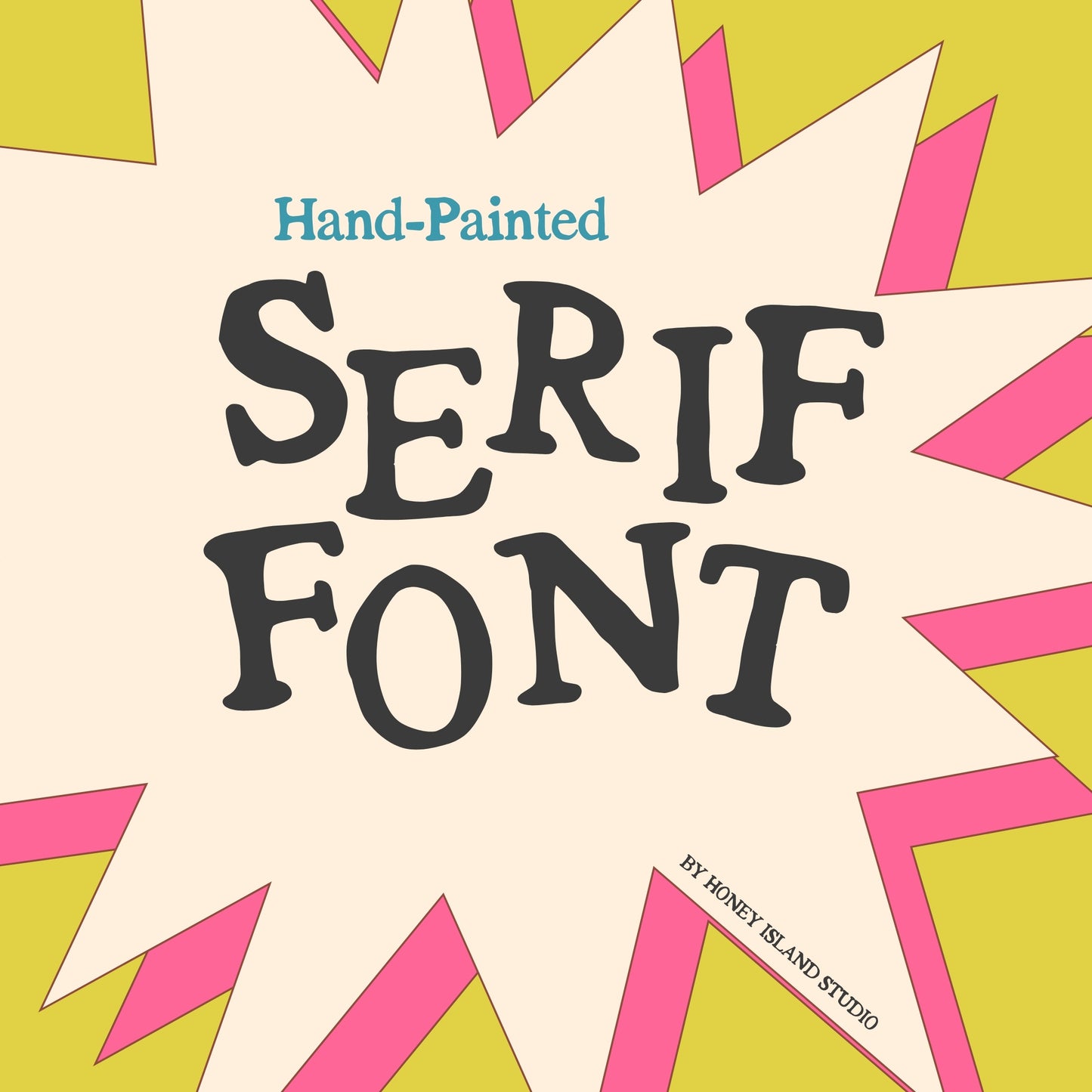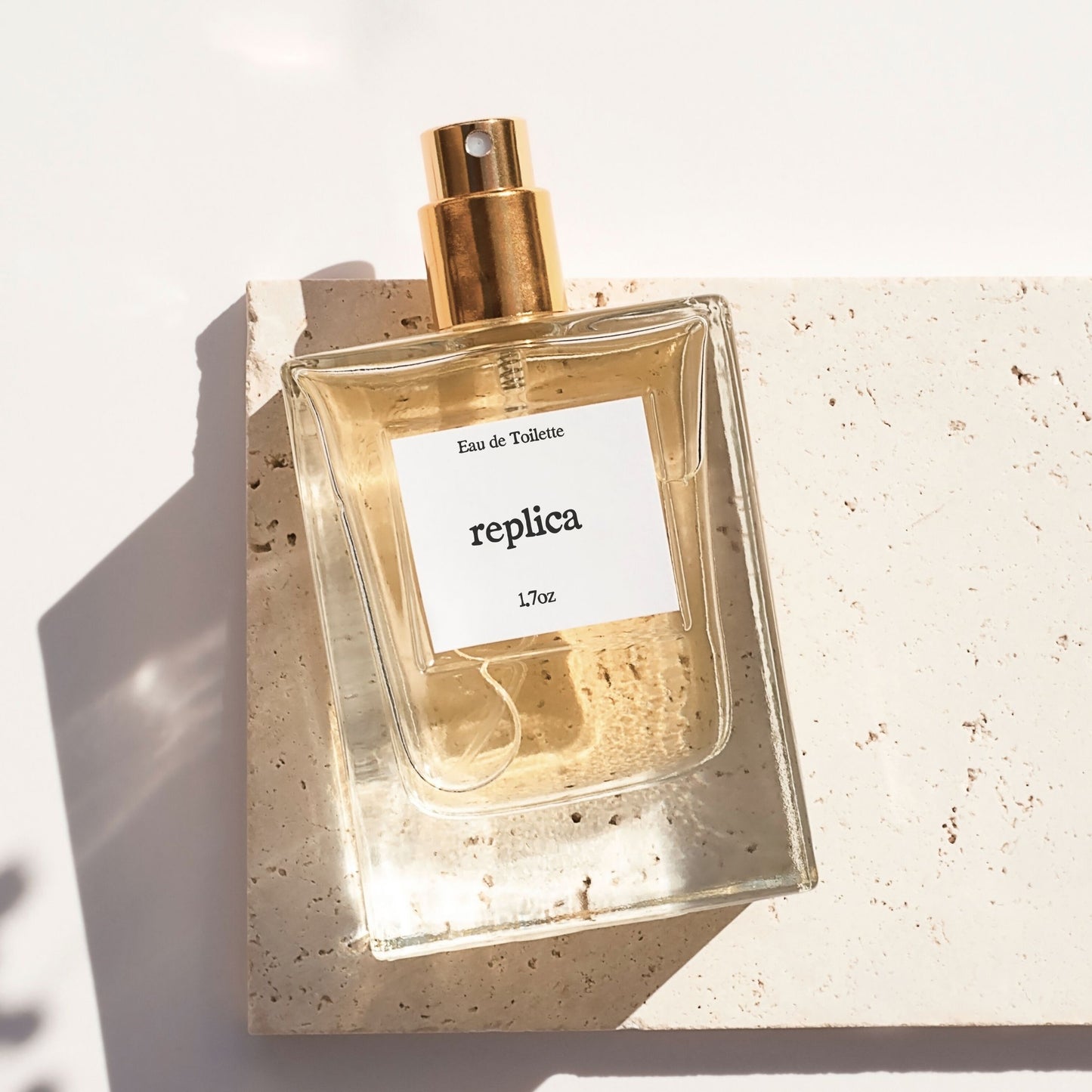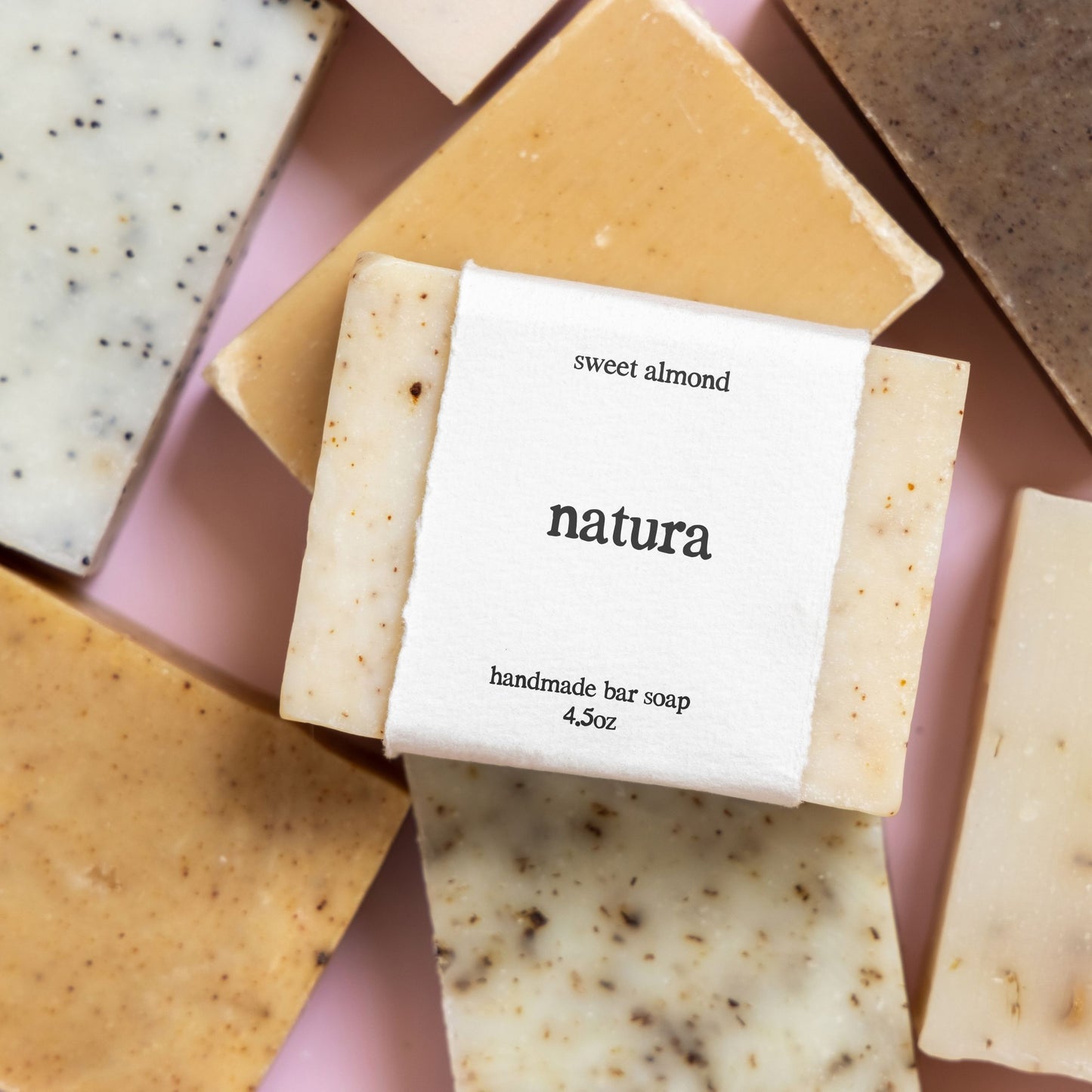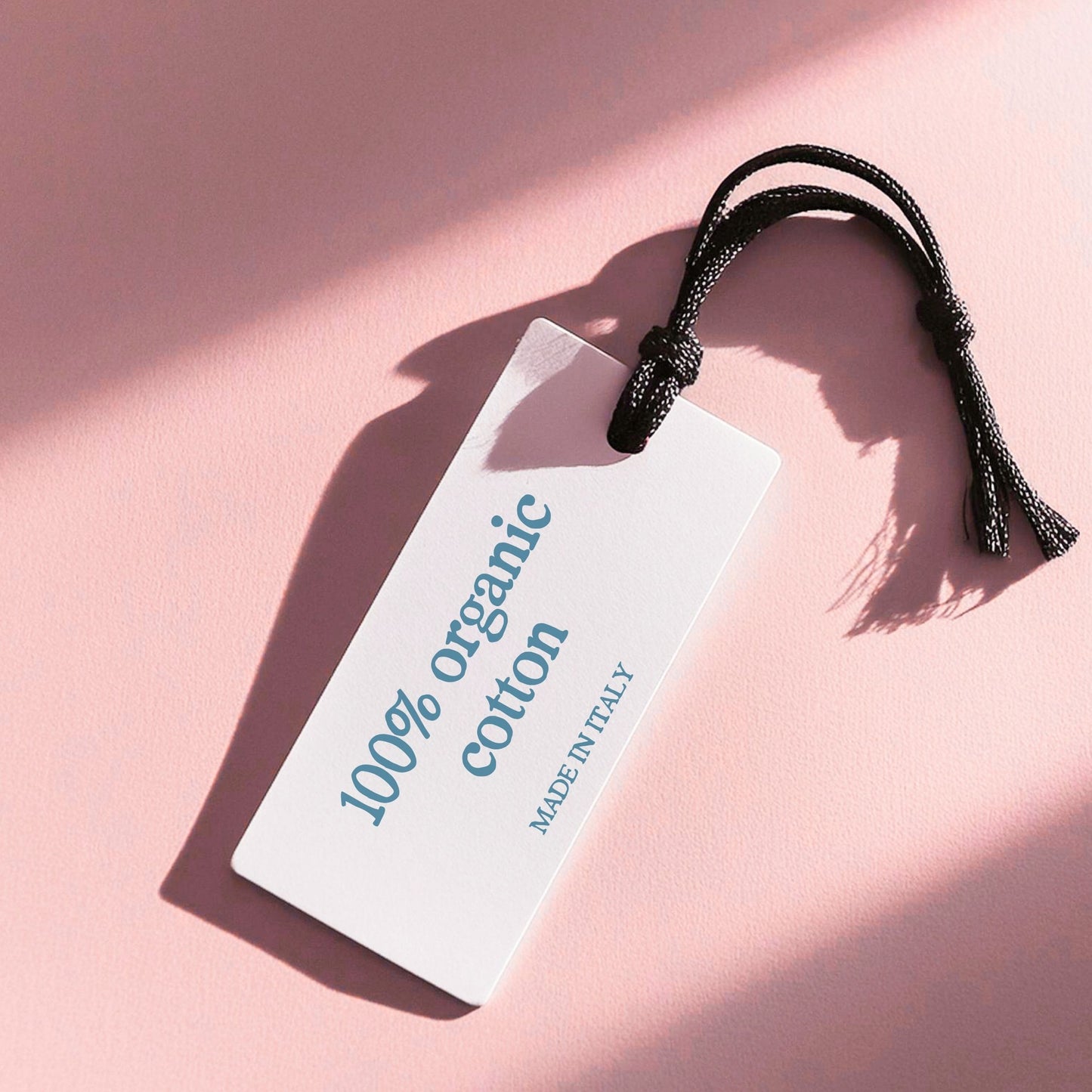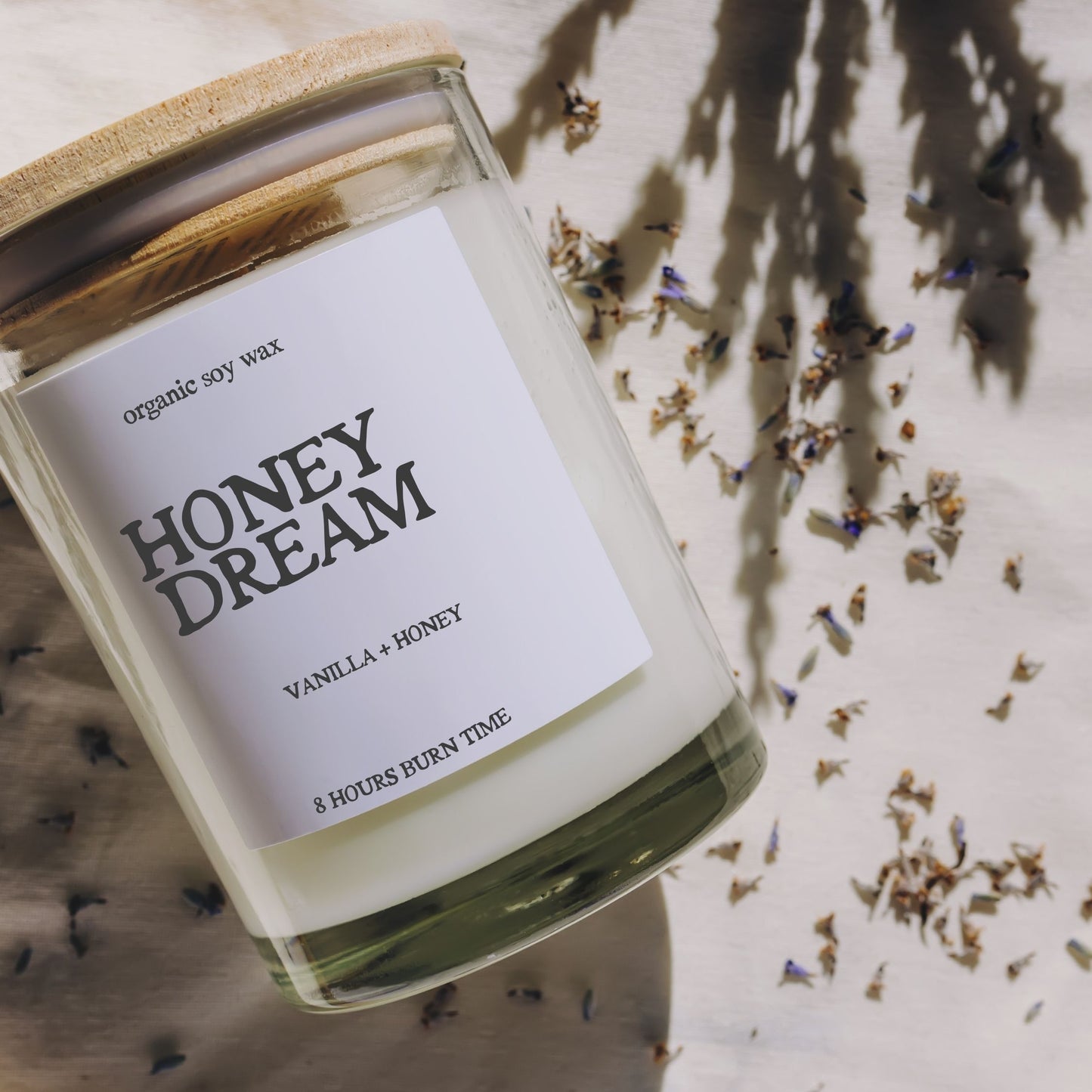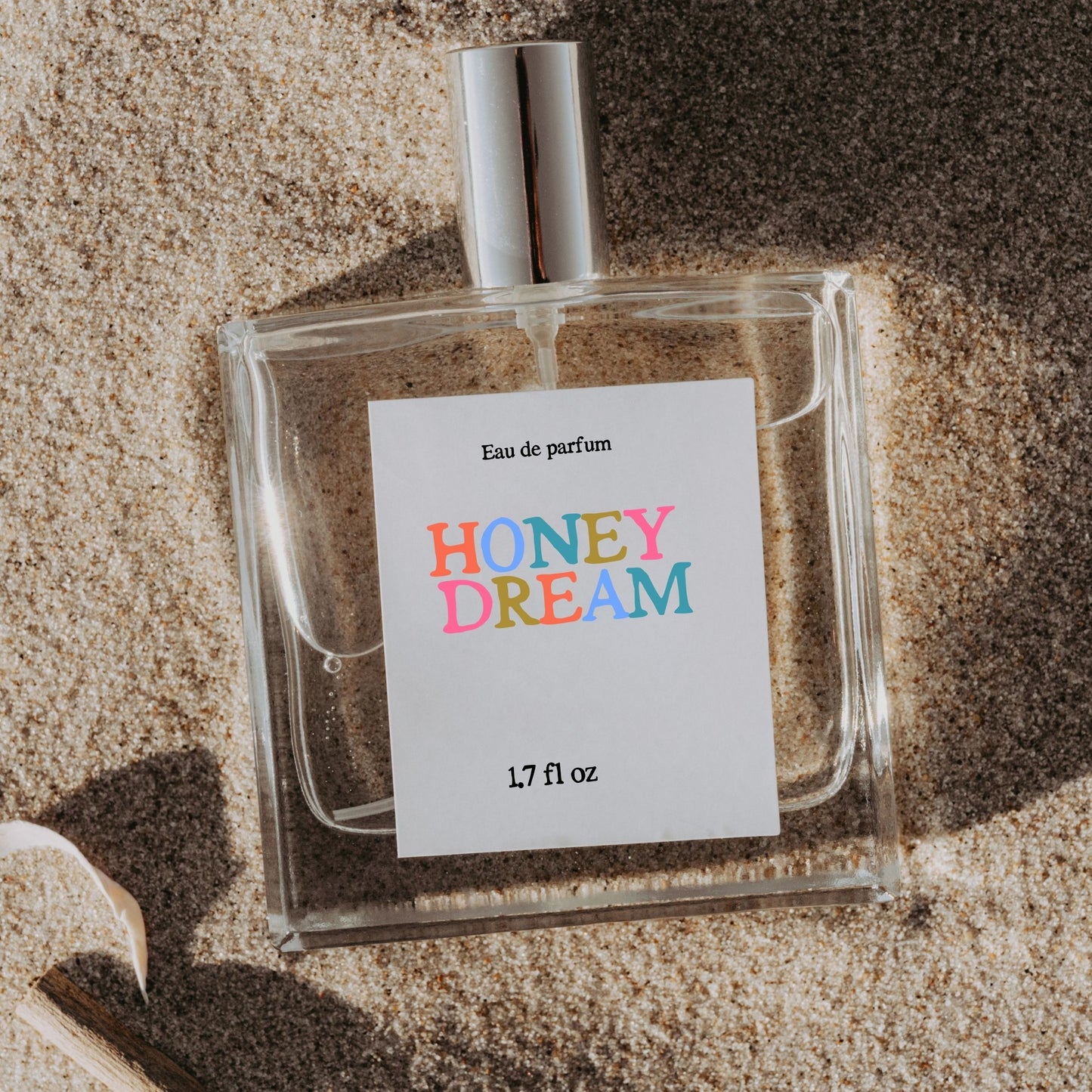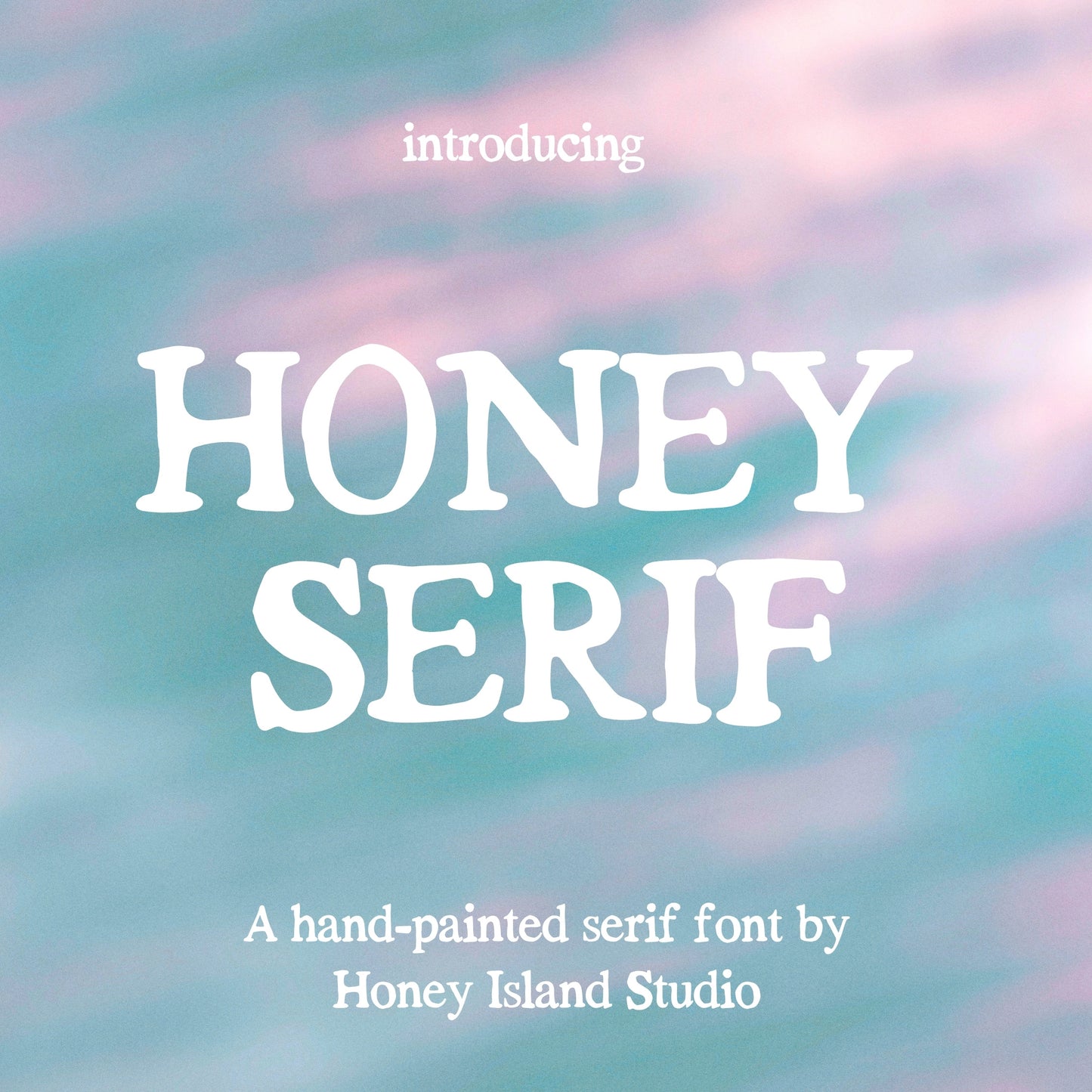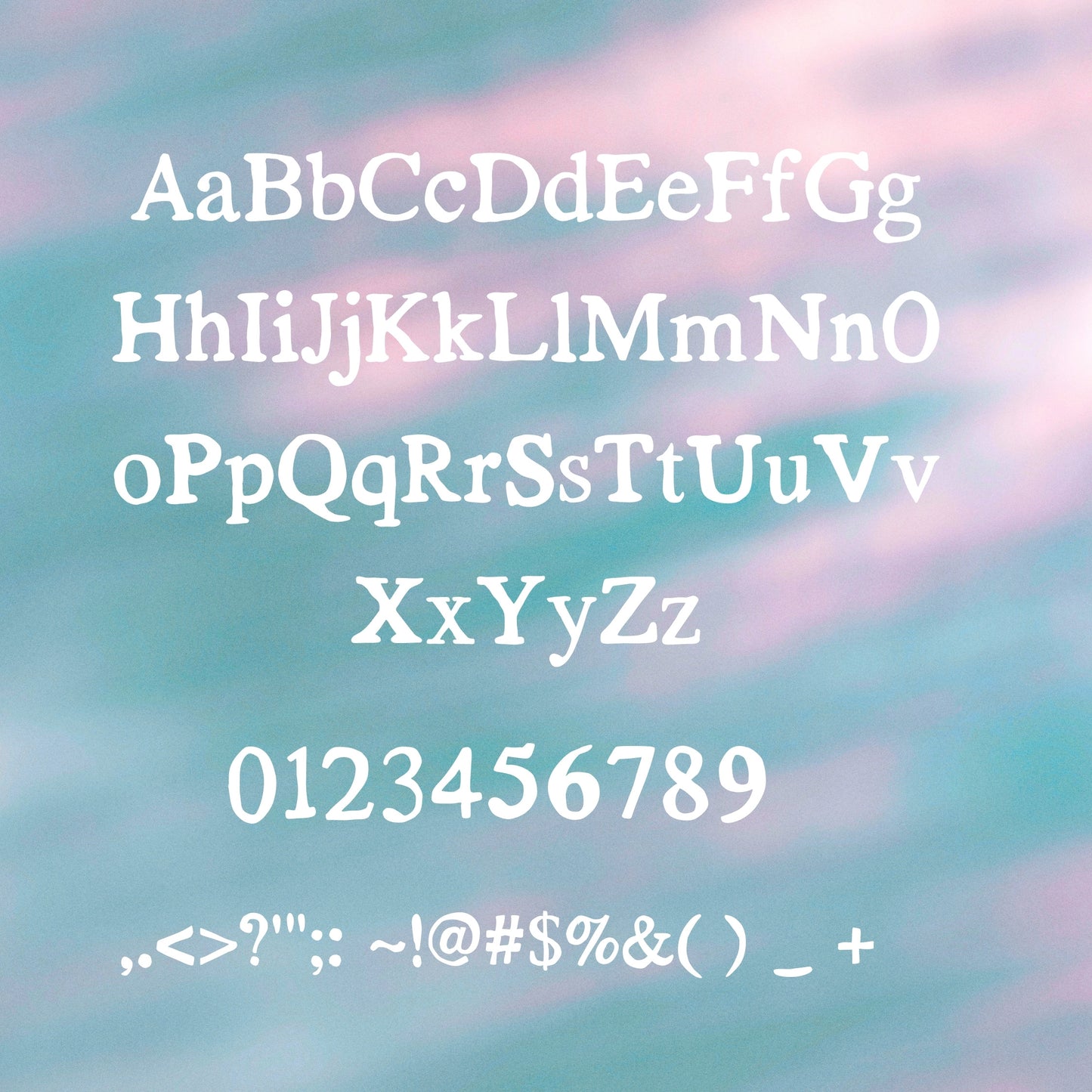
Honey Serif Hand-Painted Font
Get creative with your typography using the Honey Serif Hand-Painted Font! This unique font features a playful, hand-painted design with classic serifs. Stand out from the crowd and add a touch of whimsy to your projects with this fun and quirky font. No more boring fonts for you!
Transform your text into a delightful visual experience with this enchanting font!